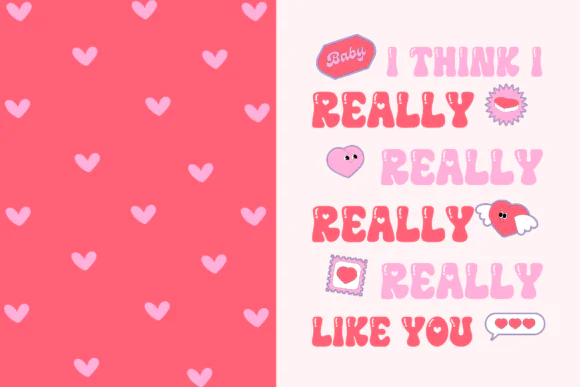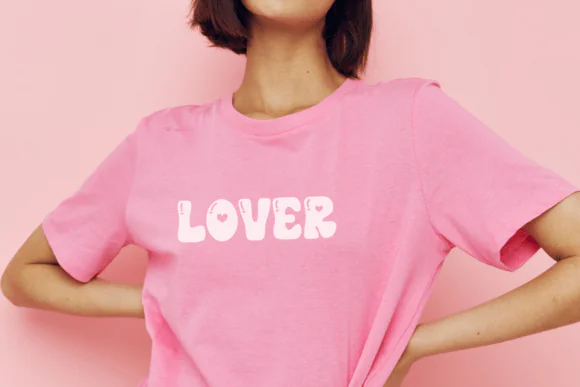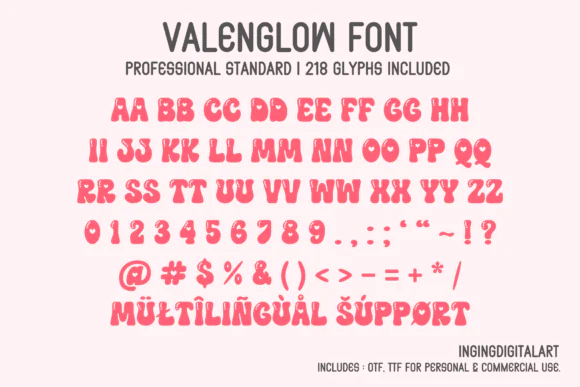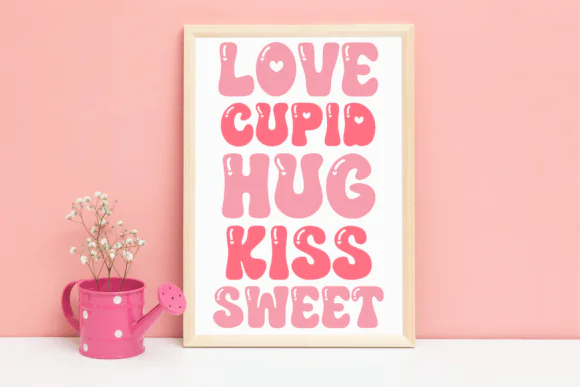
ValenGlow Font | Bubbly Shiny Valentine Display Typeface for Posters, Greeting Cards, Stickers, Candy Branding, DIY Crafts & Romantic Designs
Make your Valentine-themed designs bright, sweet, and full of personality with ValenGlow Font, a bubbly all-caps display typeface designed with bold rounded letters and playful shine details. This font brings a cheerful, glossy, and romantic look to any creative project, making it perfect for designs that need a fun and eye-catching Valentine’s Day feel.
ValenGlow is ideal for romantic greeting cards, Valentine posters, love-themed stickers, candy packaging, DIY crafts, social media graphics, party invitations, product labels, printable designs, sublimation artwork, and cute branding projects. Its shiny rounded style gives your text a high-energy, playful appearance while still keeping it bold and readable.
This font includes a complete set of characters, numbers, punctuation, and full multilingual support, making it flexible for a wide range of creative uses. Whether you are designing for a candy brand, creating adorable Valentine’s crafts, or making romantic digital products, ValenGlow adds a professional, loving, and joyful touch to every design.
• Valentine’s Day posters
• Romantic greeting cards
• Love-themed stickers
• Candy branding
• Product packaging
• DIY Valentine crafts
• Party invitations
• Printable wall art
• Sublimation designs
• T-shirt and hoodie designs
• Gift tags and labels
• Kids’ Valentine projects
• Cute logo designs
• Romantic digital artwork
Bubbly, shiny, all-caps, rounded, playful, glossy, romantic, cheerful, sweet, cute, bold, high-energy, fun, loving, and eye-catching.